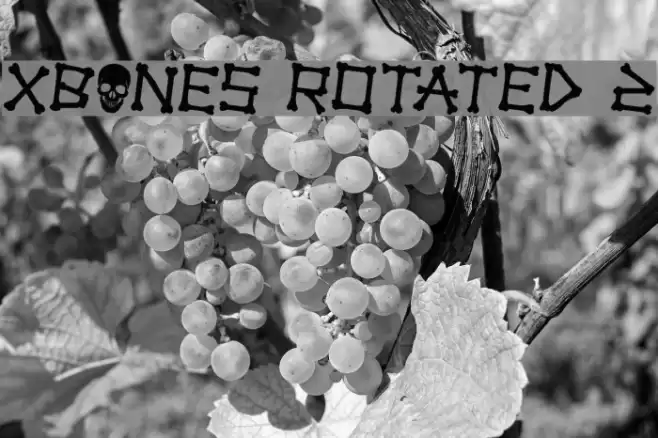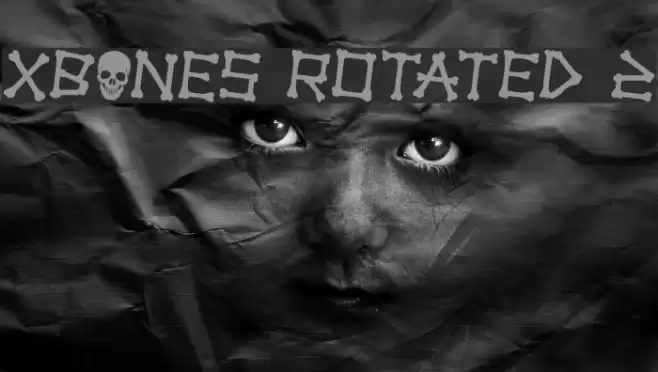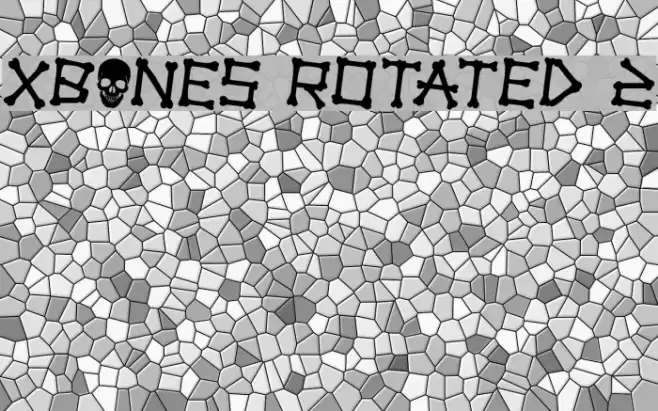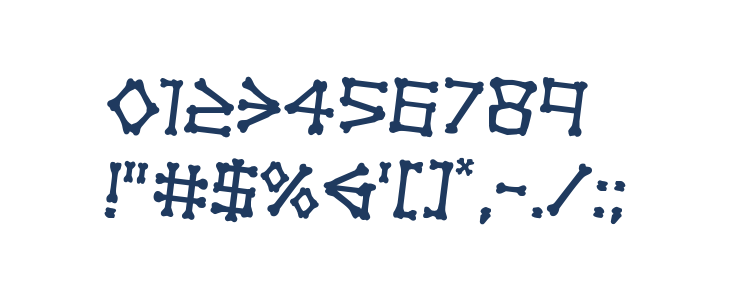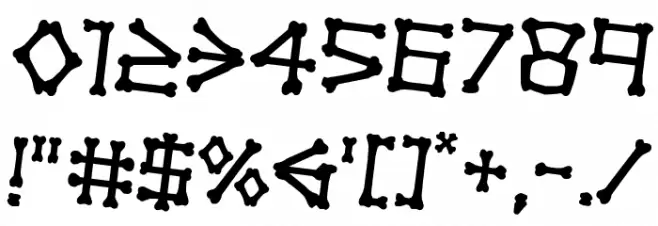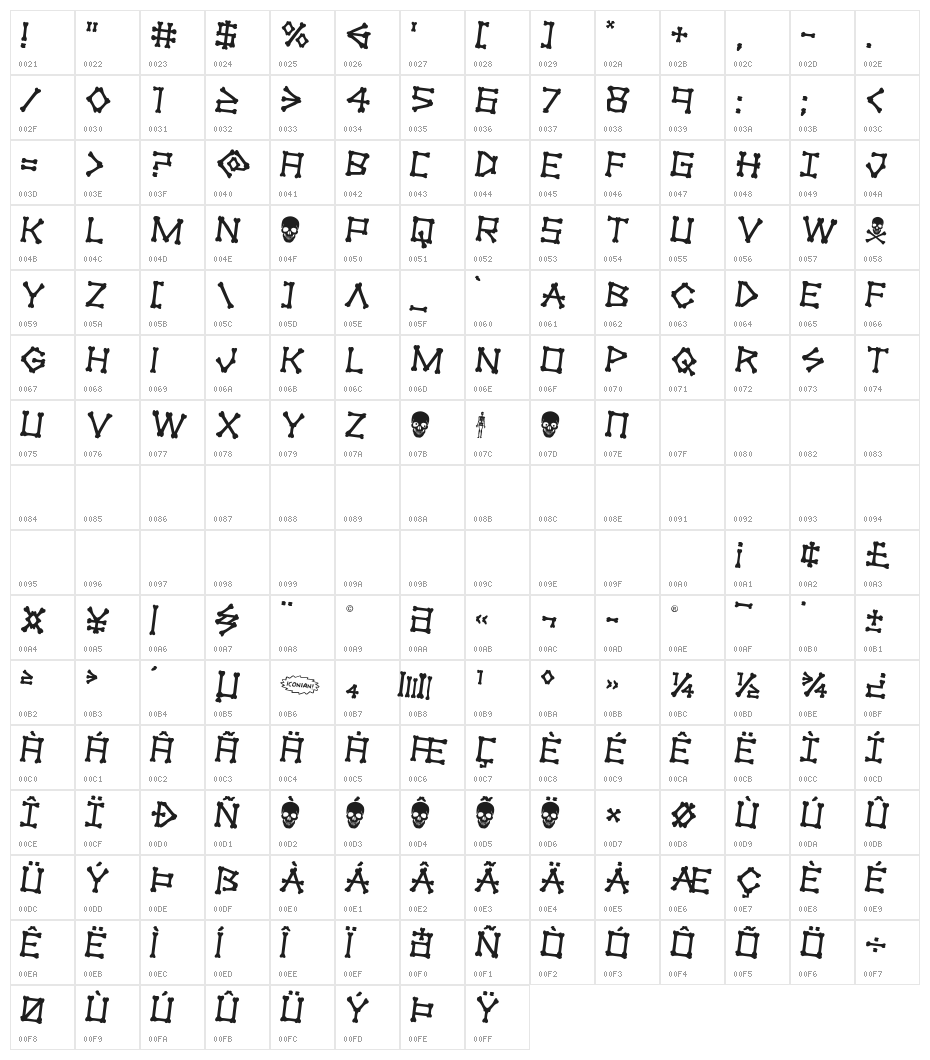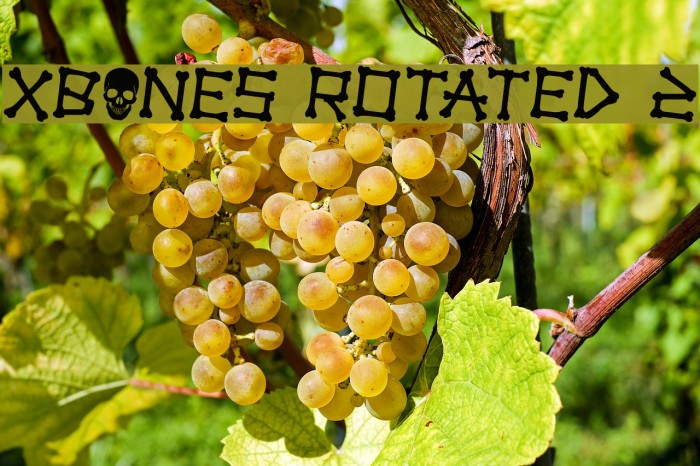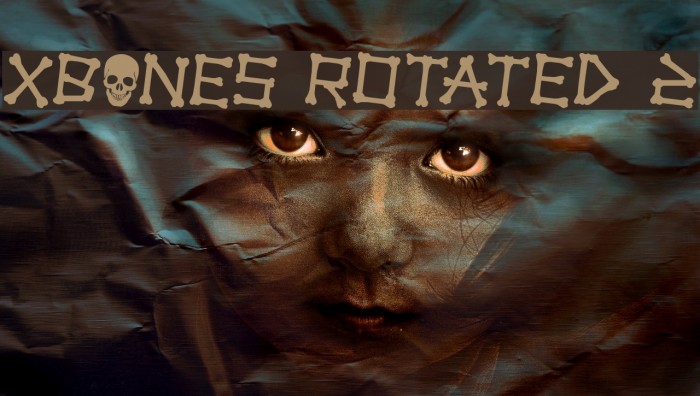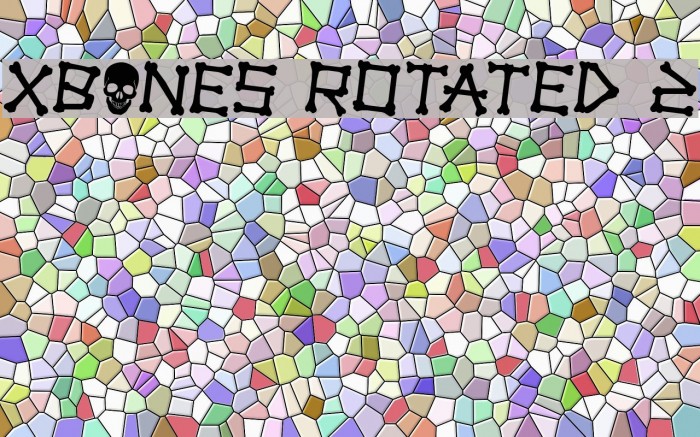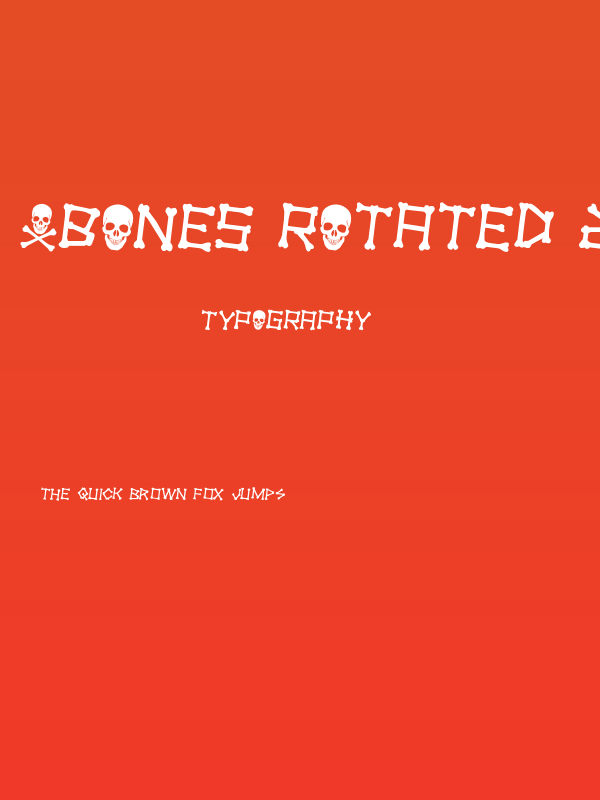
xBONES Rotated 2 Font
xBONES Rotated 2 Description
This font features a unique and playful design, with each character resembling bones or skeletal structures. The letters are crafted with a rough, hand-drawn style, giving them a slightly irregular and organic appearance. The uppercase and lowercase letters maintain a consistent theme, with the bones forming the structure of each character. Numbers and special characters follow the same skeletal motif, adding to the cohesive look. The font is bold and eye-catching, making it ideal for projects that require a spooky or Halloween-themed aesthetic.
A bold, bone-themed font with a playful, hand-drawn style from Uncategorized fonts.
- Proposed Projects: Perfect for Halloween invitations, themed party decorations, horror movie posters, and children's spooky storybooks.